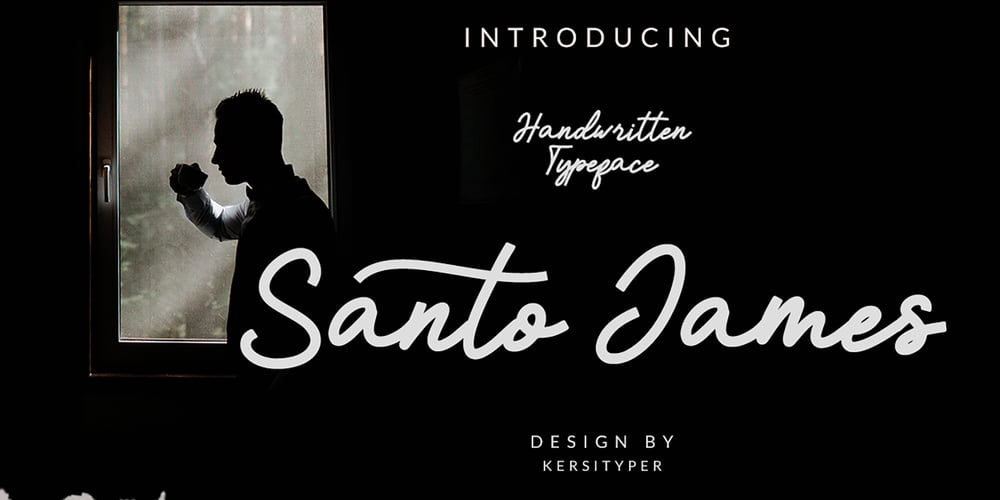
Santo James Font Family was designed by Tezar Tantular and published by Keristyper Studio. Santo James contains 1 styles and family package options. Introducing Santo James’ handwritten font. This script font comes with a retro, modern, and vintage touch in it. Inspired by the dynamic culture, sign, and badge design. This font looks very natural, perfect for all your large projects that require a handwritten touch.Santo James Font multilingual support: Afrikaans, Albanian, Catalan, Danish, Dutch, English, Estonian, French, Finnish, German, Icelandic, Indonesian, Italian, Malay, Norwegian, Portuguese, Spanish, Swedish, Zulu, and many more.What’s Included : Standard & Multilingual glyphs Ligature Works on PC & Mac Simple installations Accessible in Adobe Illustrator, Adobe Photoshop, Adobe InDesign, and even work on Microsoft Word. Hope you enjoy our font!